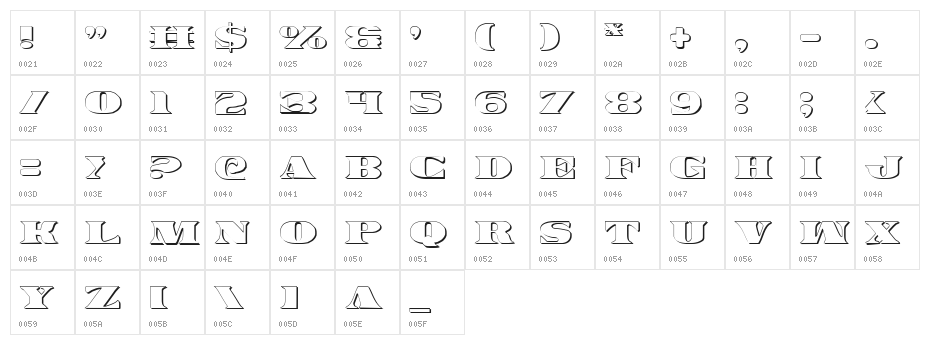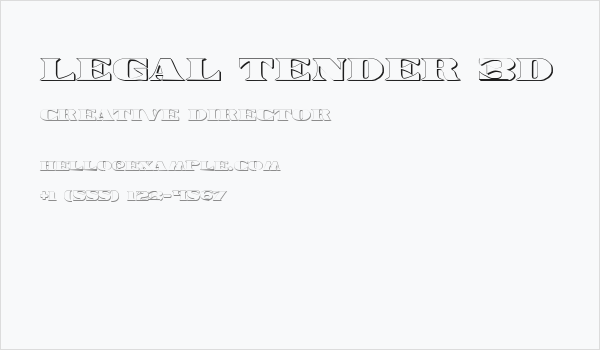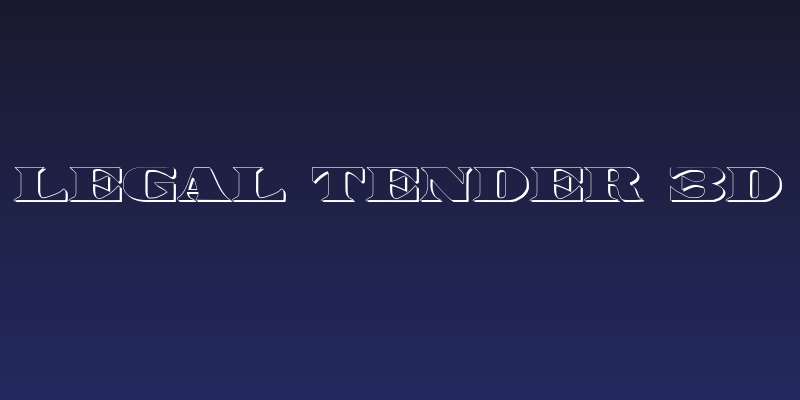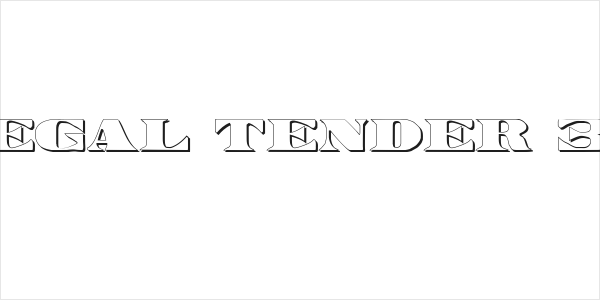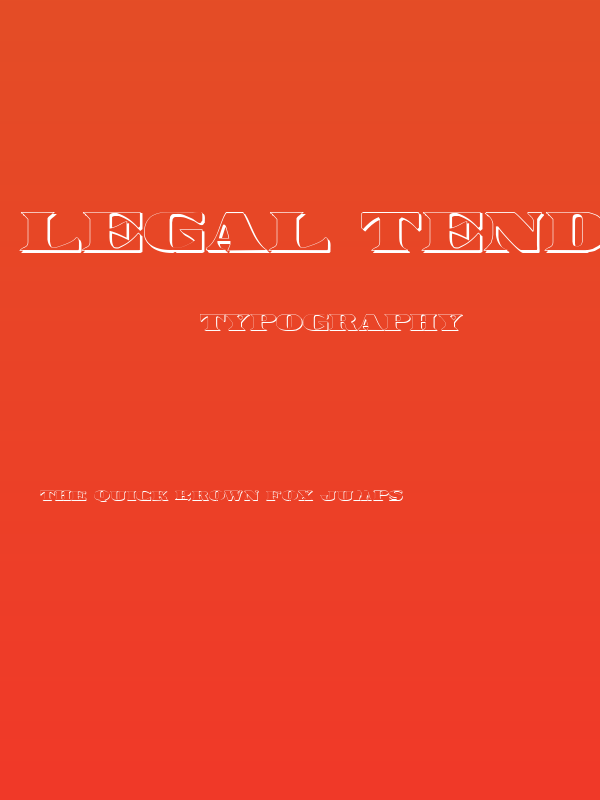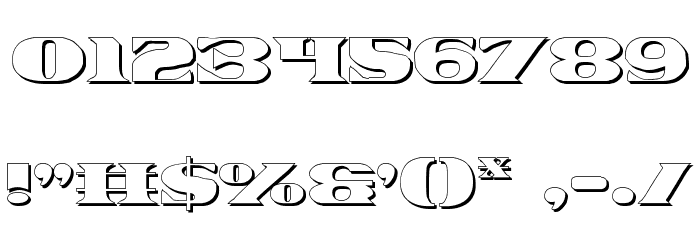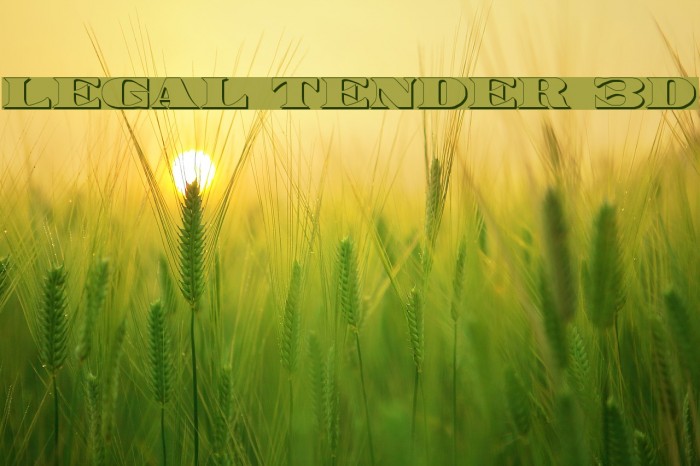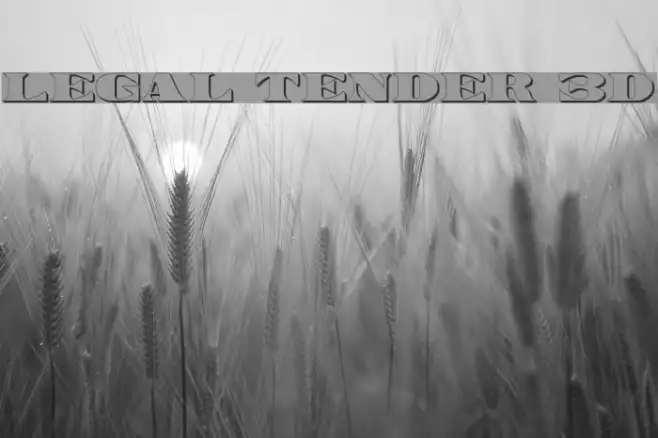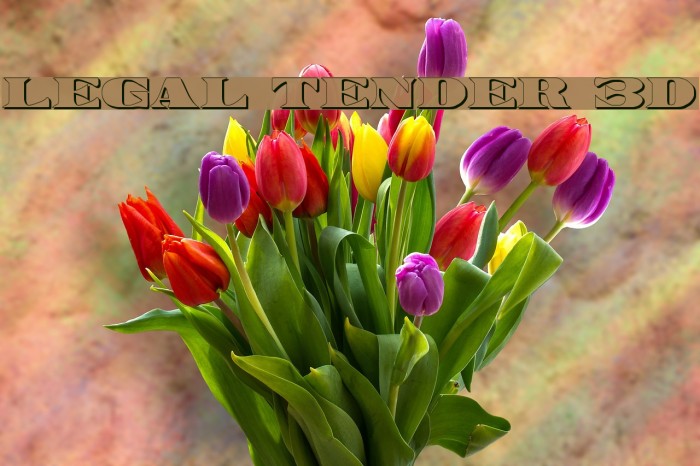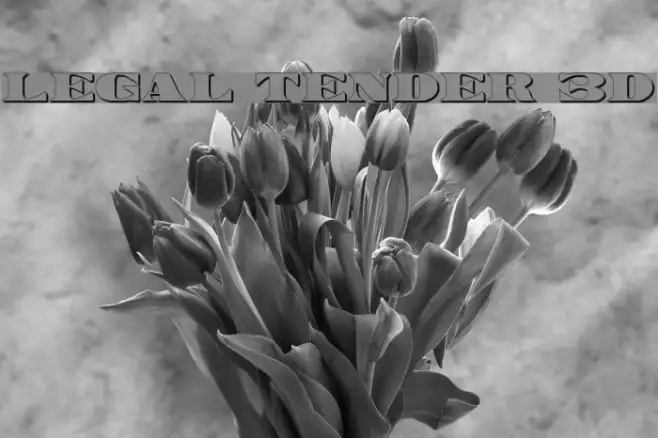
Legal Tender 3D Font
Legal Tender 3D Description
This font features a bold, three-dimensional design with a classic serif style. Each character is outlined, giving it a distinct, shadowed appearance that adds depth and dimension. The uppercase letters are prominently styled with sharp serifs and clean lines, while the numerals and special characters maintain the same bold and structured aesthetic. The font's design is reminiscent of traditional engraving or currency, making it suitable for projects that require a formal and authoritative look. Its unique 3D effect is achieved through precise line work that creates an illusion of depth, making it stand out in any design.
| Proposed Projects | Ideal for use in branding, posters, signage, and any design requiring a formal and impactful look. |